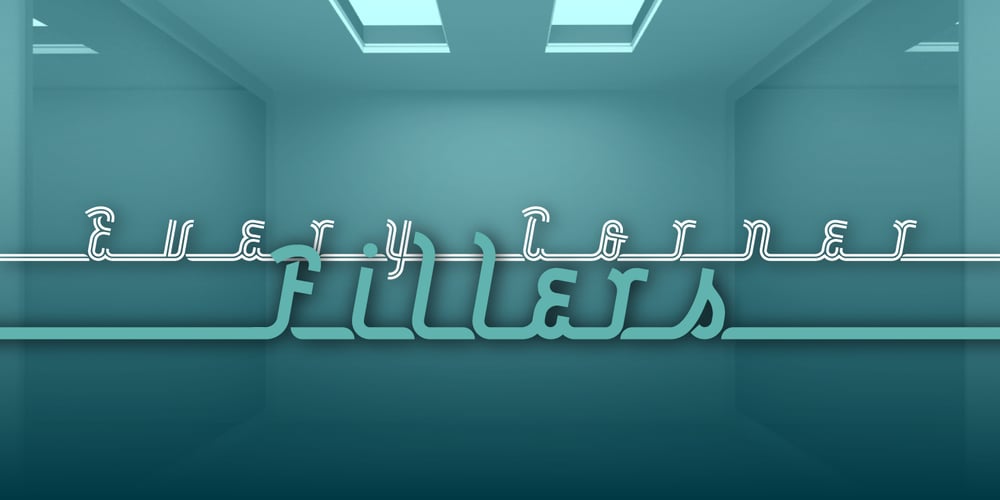
Roadline
Roadline font
Roadline Font Family was designed by John Moore and published by John Moore Type Foundry. Roadline contains 3 styles and family package options. Roadline is a professional display font collection of Streamline style for lettering, a style of lettering that was much in vogue from the 30 to the 60. Roadline aligns all your characters on a horizontal baseline and allows headlines or logos into three wide variables. Besides its connectors allow you to create variations ranging from elegant classics to radicals or creative situations, adapting to all target tones of voice message, it brings Roadline a series of pre-programmed parts in Opentype links for easy use and enable very creative and unexpected combinations. For its decorative character this typeface is very useful for headlines and logo creation. Relive the golden years of the brands with Roadline.